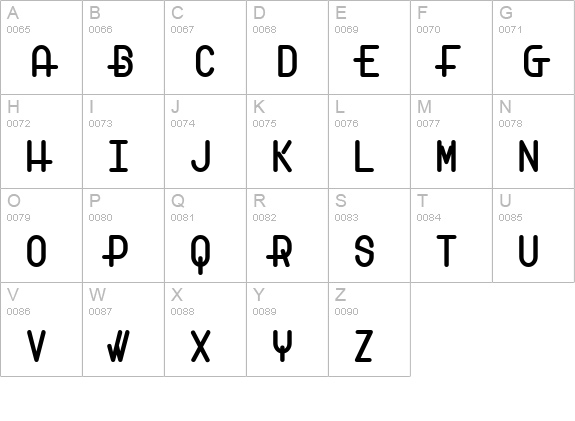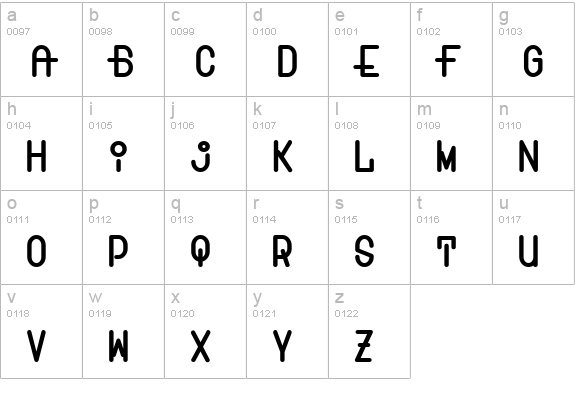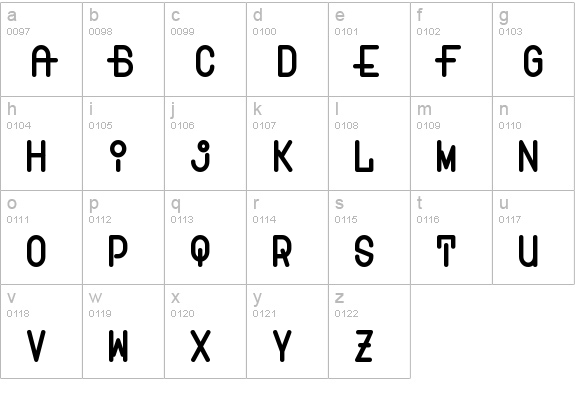
Transam Font Details
Transam font is a brilliant creation that effortlessly combines elegance with a touch of modernity. It is a versatile typeface that can be used for various design projects, from logos and branding to editorial layouts and website designs. With its clean and stylish letterforms, Transam font adds a sense of sophistication and professionalism to any design. What makes Transam font even more appealing is its availability as a free download. That's right, this exceptional font can be obtained for free at FontsMarket.com. This means that designers, creatives, and enthusiasts alike can easily access this remarkable font without any cost. It's a fantastic opportunity to enhance your design arsenal with a top-notch font that doesn't break the bank. Transam font offers a wide range of weights and styles, allowing you to experiment and find the perfect fit for your project. Whether you need a bold and impactful headline or a subtle and elegant body copy, Transam font has got you covered. Its versatility ensures that it can adapt to various design themes and aesthetics effortlessly. When it comes to legibility, Transam font excels. Its well-defined letterforms and generous spacing make it easy to read even in small sizes, ensuring that your message is conveyed clearly to your audience. The attention to detail in the design of Transam font is evident, adding a touch of refinement to any design it is used in. With its sleek and sophisticated appearance, Transam font is the ideal choice for projects that require a touch of class and elegance. Whether it's for corporate identities, advertising materials, or packaging designs, this font will elevate your work and leave a lasting impression. In conclusion, Transam font is a must-have for any designer looking to add a touch of elegance and modernity to their projects. And the best part? It's available for free at FontsMarket.com. So why wait? Download Transam font today and unlock a world of design possibilities.